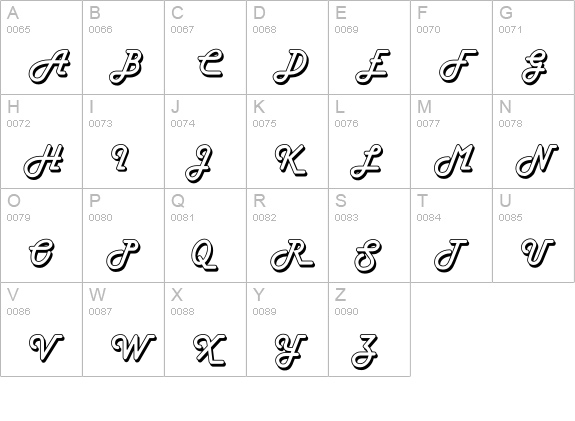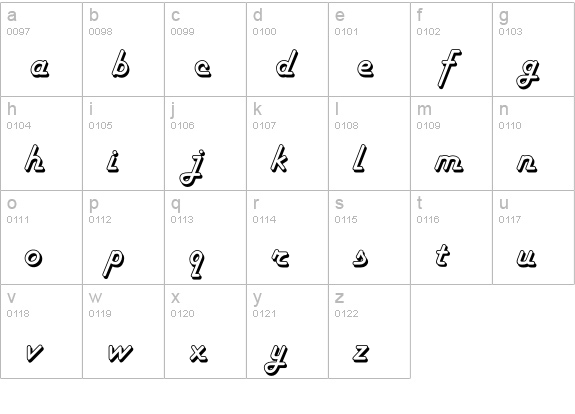
FlynnHollow Font Details
FlynnHollow font is a beautifully crafted typeface that exudes elegance and sophistication. With its delicate and intricate design, this font is perfect for adding a touch of charm to any project. The graceful curves and ornate details of FlynnHollow font make it a versatile choice for a wide range of design applications. What sets FlynnHollow font apart is not only its stunning aesthetics but also the fact that it is available for free download at FontsMarket.com. This means that you can easily access this exquisite font without any cost, making it a valuable addition to your font collection. Whether you're working on a branding project, creating invitations, or designing a website, FlynnHollow font will bring a sense of grace and refinement to your work. Embrace the beauty of this font and elevate your designs with its timeless appeal. Download FlynnHollow font today and let its elegance inspire your creativity.